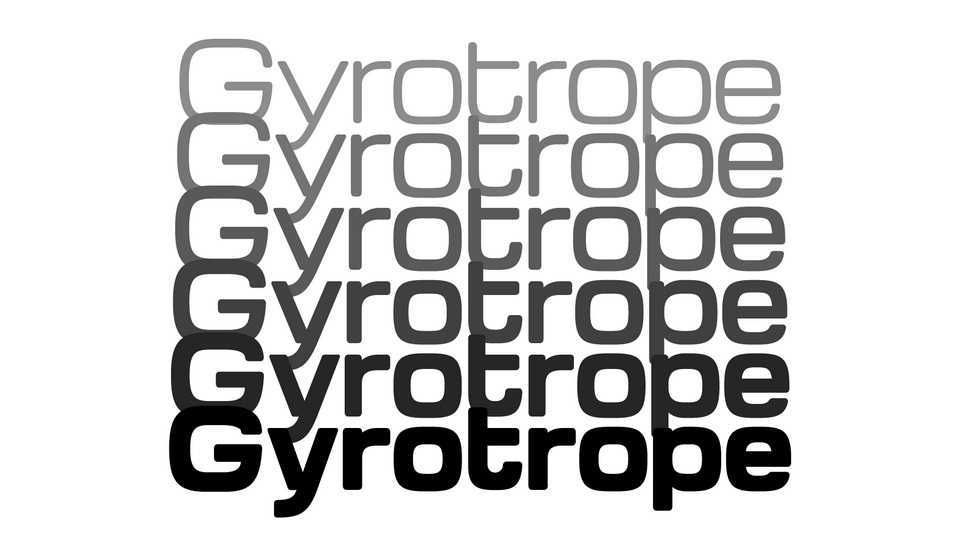
Gyrotrope Font Family › Fontesk – Download Grátis
Download Gyrotrope font, a wide, rounded, geometric sans-serif inspired by typefaces of the 1960s such as Microgramma and Eurostile, as well as contemporary takes on the genre such as Vernon Adams’ Michroma.
Designer: David Moles